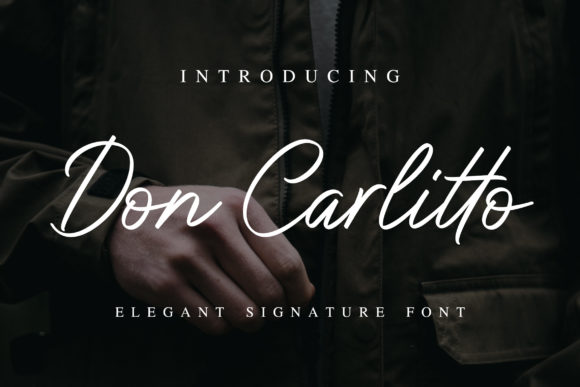
Journey into a world of timeless beauty with Don Carlitto Font, a script font family that exudes elegance and charm. As delicate as a handwritten note, yet striking in its presence, Don Carlitto adds a touch of sophistication to any design project.
Unleash your creativity with Don Carlitto's sweeping curves and graceful lines. Perfect for wedding invitations, thank-you cards, quotes, greeting cards, logos, and business cards, this font evokes a sense of heartfelt connection and timeless allure.
Don Carlitto's versatility extends beyond traditional applications. Its enchanting nature lends itself to modern designs, adding a touch of individuality and charm. Whether you're creating social media graphics, website headers, or product packaging, Don Carlitto will elevate your designs to new heights.
Immerse yourself in the artistry of Don Carlitto, a font that captures the essence of heartfelt emotions and personal expression. Its delicate strokes and elegant curves create a visual symphony that speaks volumes. Experience the magic of Don Carlitto and transform your designs into captivating works of art.